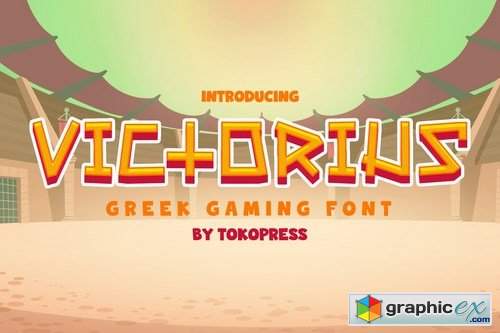
Victorius - Gaming font
Victorius - Gaming font
Ancient greek and mythology still keeping us in an awe. The vast story of heroes and monster, their dynamic, war, and alliance still have plenty to be digging on.